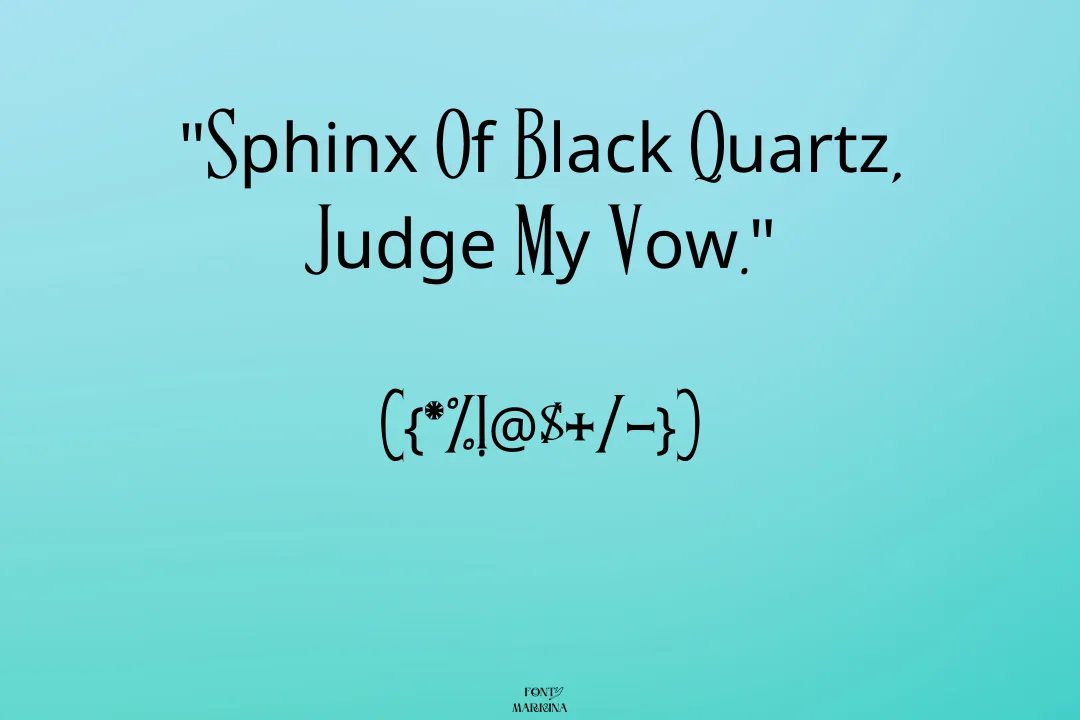
Band of Reality Font
The Band of Reality font is a standard typeface design used for written text. The main and original creator of this texture was Maelle Keita. This typography falls in the classification of the serif family. It has a specific look and style, which can be used to enhance the visual appearance of a document or design project.
The design of the font typically includes features such as letter shapes, spacing between letters, and the thickness of the lines used to create the letters. This typography is usually chosen for its unique and eye-catching style, which sets it apart from other more common font choices.
Uses of Band of Reality Font
The Band of Reality font can be used in a combination of fields, as its unique design and style make it a versatile font choice. Some common uses of this texture are:
Graphic Design: This texture can be used in graphic design projects such as stamps, posters, brochures, and advertisements.
Web Design: The font can be used in web design to add visual interest and personality to websites and online content.
Advertising: The unique style of the Band of Reality can make it a good choice for advertising campaigns, helping to draw attention and make a lasting impression on potential customers.
Publishing: The font can be used in publishing to create attention-grabbing headings, titles, and other text elements in books, magazines, and other printed materials.
Branding: Companies and organizations can use this typography as part of their brand identity, helping to establish a distinctive look and feel for their products and services.
DesignerMaelle Keita
TypeSerif
what is the type of Band of Reality?
This typography falls in the category of the serif family and has a bunch of styles.